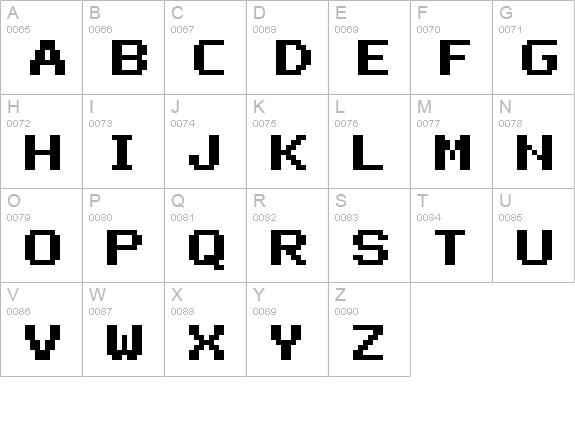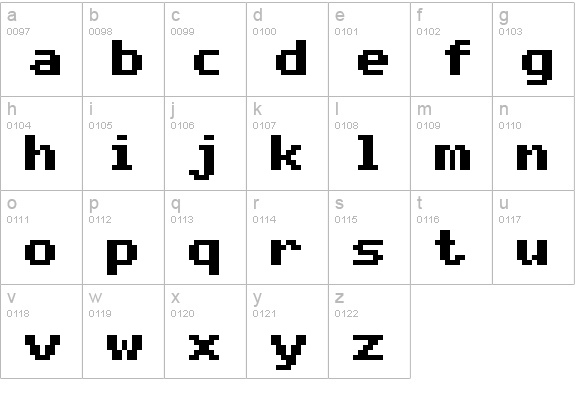
mono 07_65 Font Details
Below you can preview mono 07_65 in uppercase [A-Z], lowercase [a-z] and numbers [0-9]. You can also read the author's notes and license information before downloading.
mono 07_65 uppercase A-Z preview mono 07_65 lowercase a-z preview mono 07_65 numbers 0-9 preview
Introducing the versatile and modern mono 07_65 font, a sleek and stylish typeface that is perfect for a wide range of design projects. With its clean lines and contemporary feel, this font is sure to make a statement in any creative work. The mono 07_65 font is free to download at FontsMarket.com, making it easily accessible for designers looking to add a touch of sophistication to their designs. Whether you're working on branding, web design, or print materials, this font is a fantastic choice that will elevate your projects to the next level. Embrace the clean and minimalist aesthetic of the mono 07_65 font and watch your designs come to life with a touch of modern elegance.